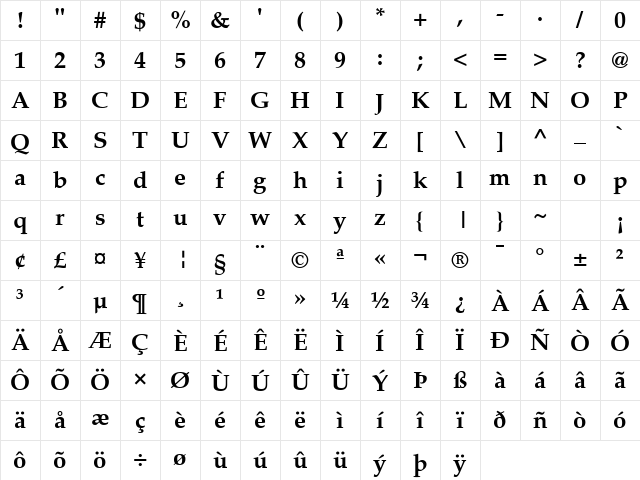
Palton BOLD
Style: BOLD
Palton Family
Design Context for Palton
Palton is a composed and adaptable typeface that performs quietly and consistently across a wide range of design contexts. Its bold stroke weight gives it real presence on the page.
Pro Tip: Use Palton in both headline and body roles to test its range before committing to a single application.